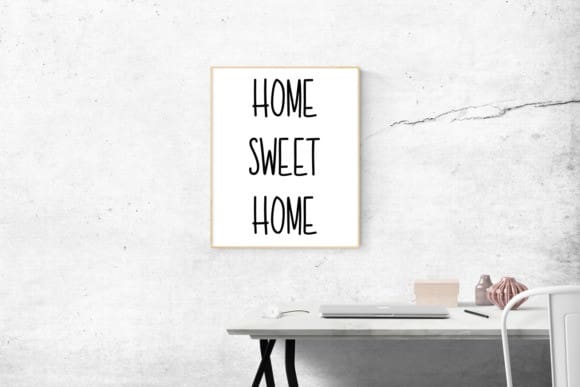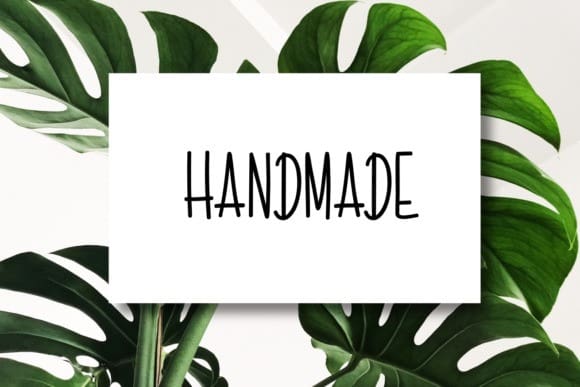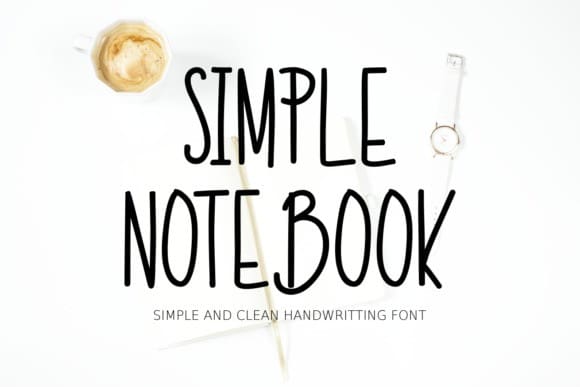
Simple Notebook Font
Simple Notebook is a simple, clean, and neat handwritten font. No matter the topic, this font will be an incredible asset to your fonts’ library, as it has the potential to elevate any creation!